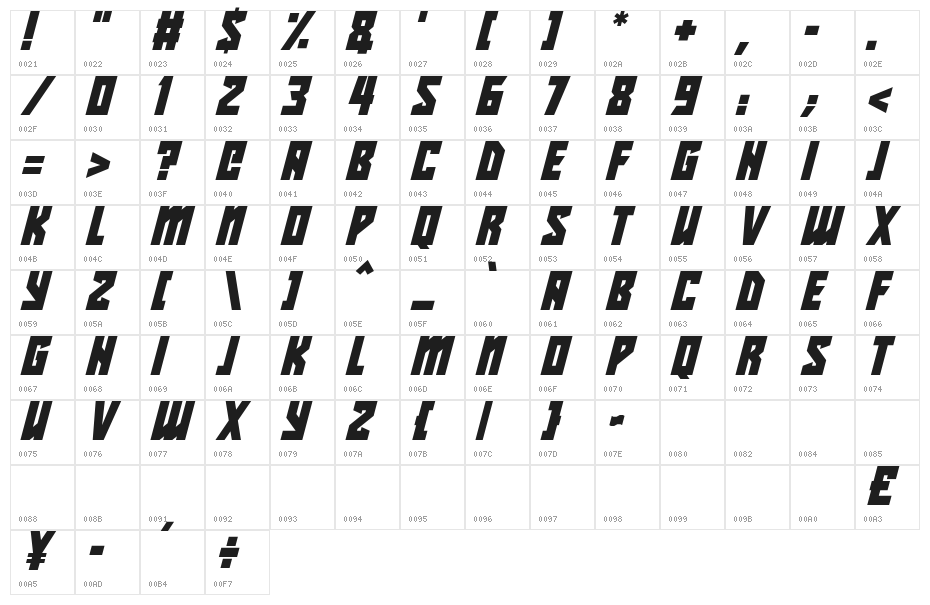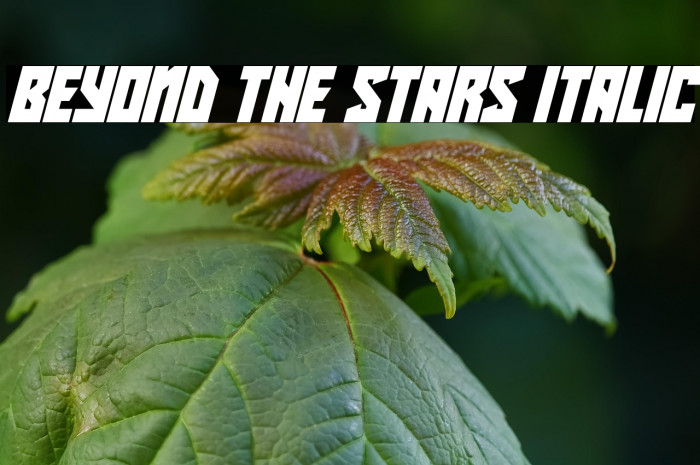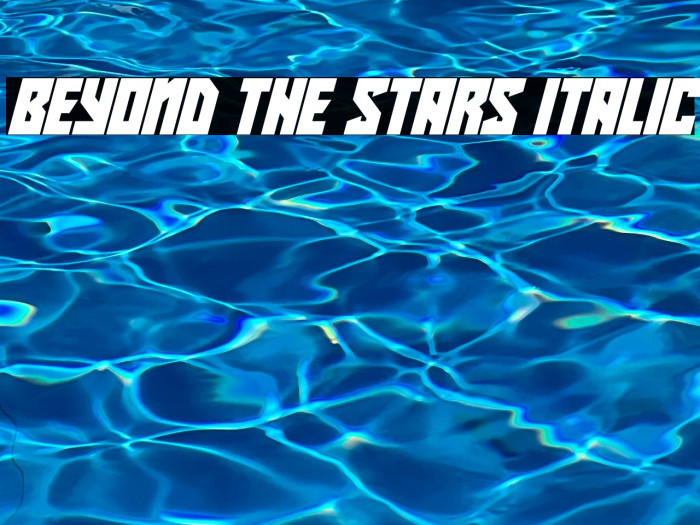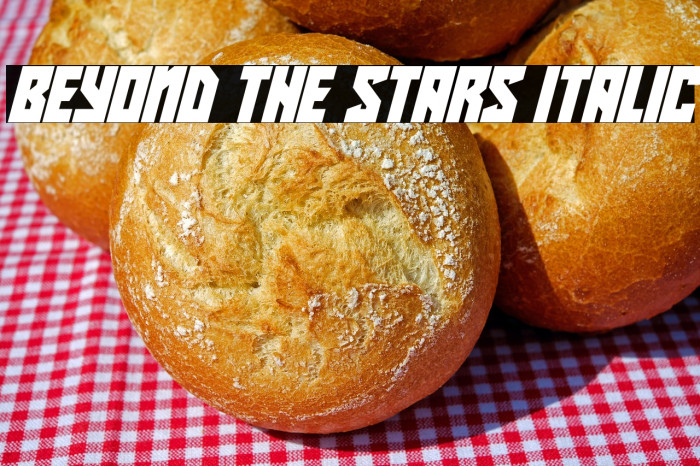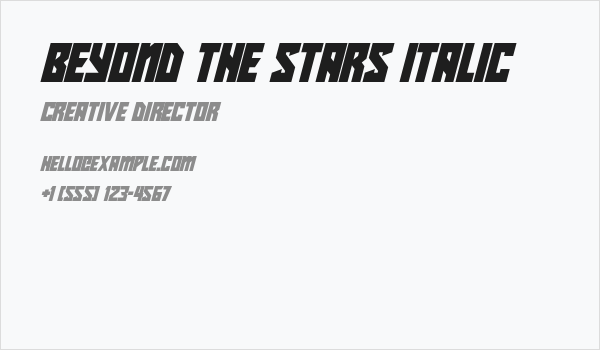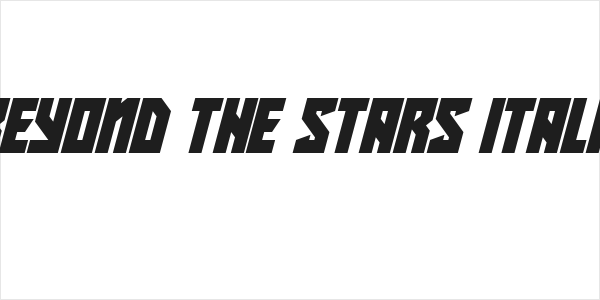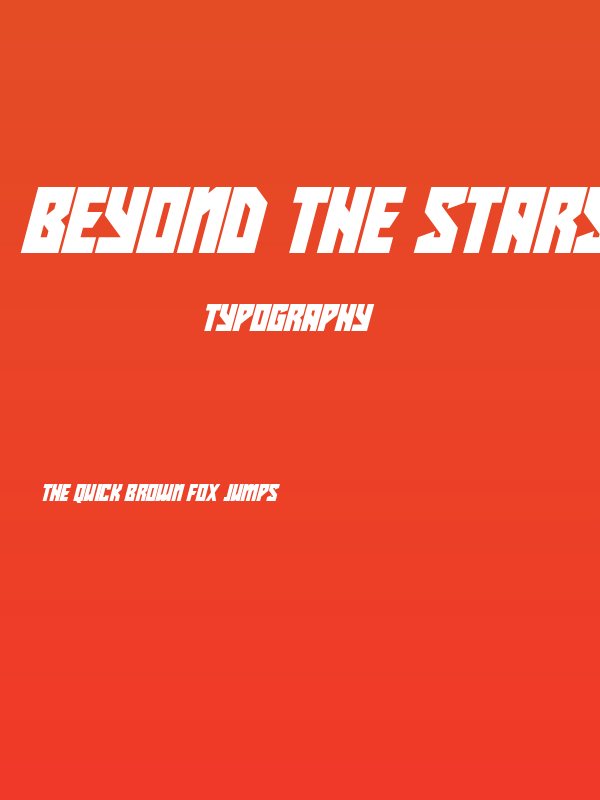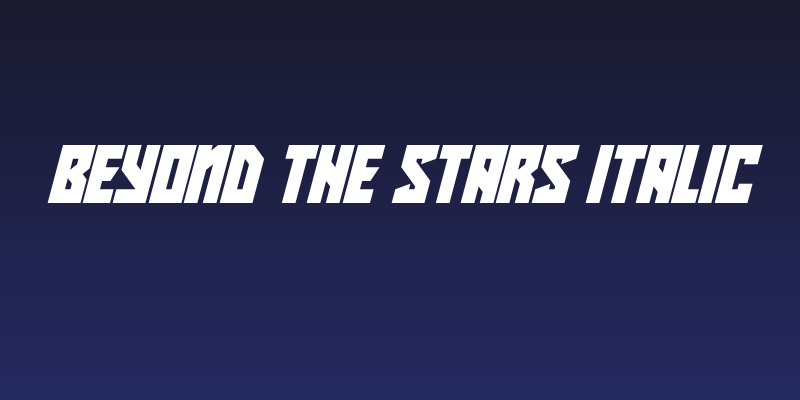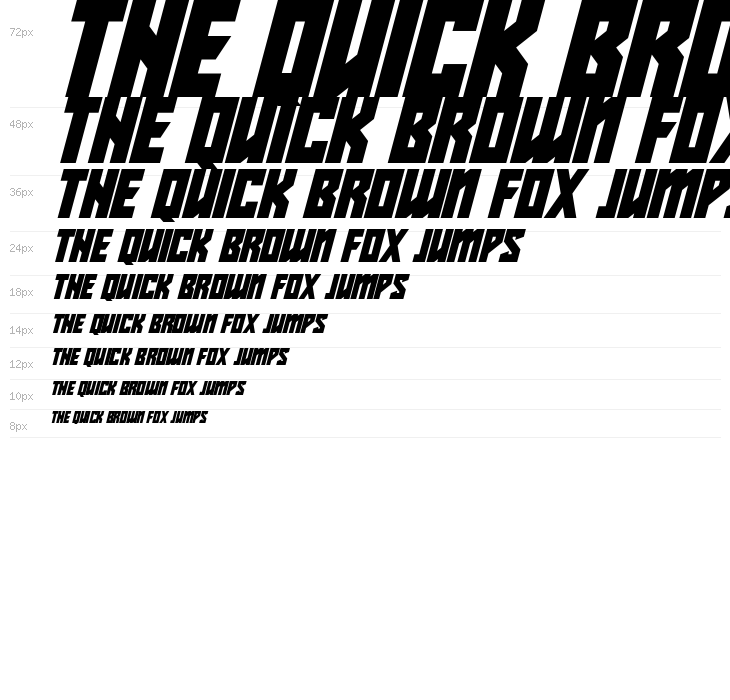
Beyond The Stars Italic Font
Beyond The Stars Italic Description
This font features a bold, angular design with a futuristic and dynamic appearance. The characters are sharply cut with a distinct slant, giving them a sense of motion and energy. The uppercase and lowercase letters share a consistent style, maintaining the bold and geometric aesthetic throughout. The numbers and special characters are equally bold and angular, fitting seamlessly with the overall design. This font's strong presence and unique style make it ideal for projects that require a modern and impactful look.
| Proposed Projects | Ideal for sci-fi themed posters, video game titles, and branding that requires a modern and bold aesthetic. |